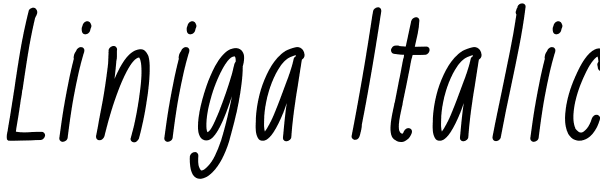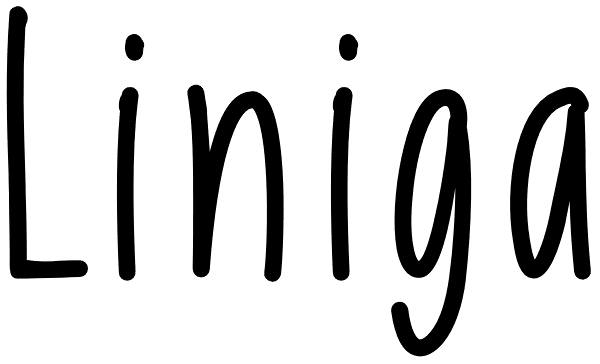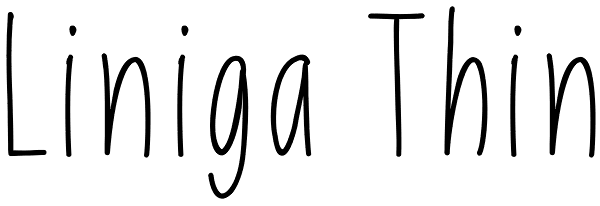
Liniga
A tall, warm and friendly handwritten typeface with a simple structure and low contrast. Works well for both display and body text. It has a serif version as well - Liniga Serif.
Liniga Italic
Liniga Italic Font
Liniga Thin Italic
Liniga Thin Italic Font
Liniga
Liniga Font
Liniga Thin
Liniga Thin Font